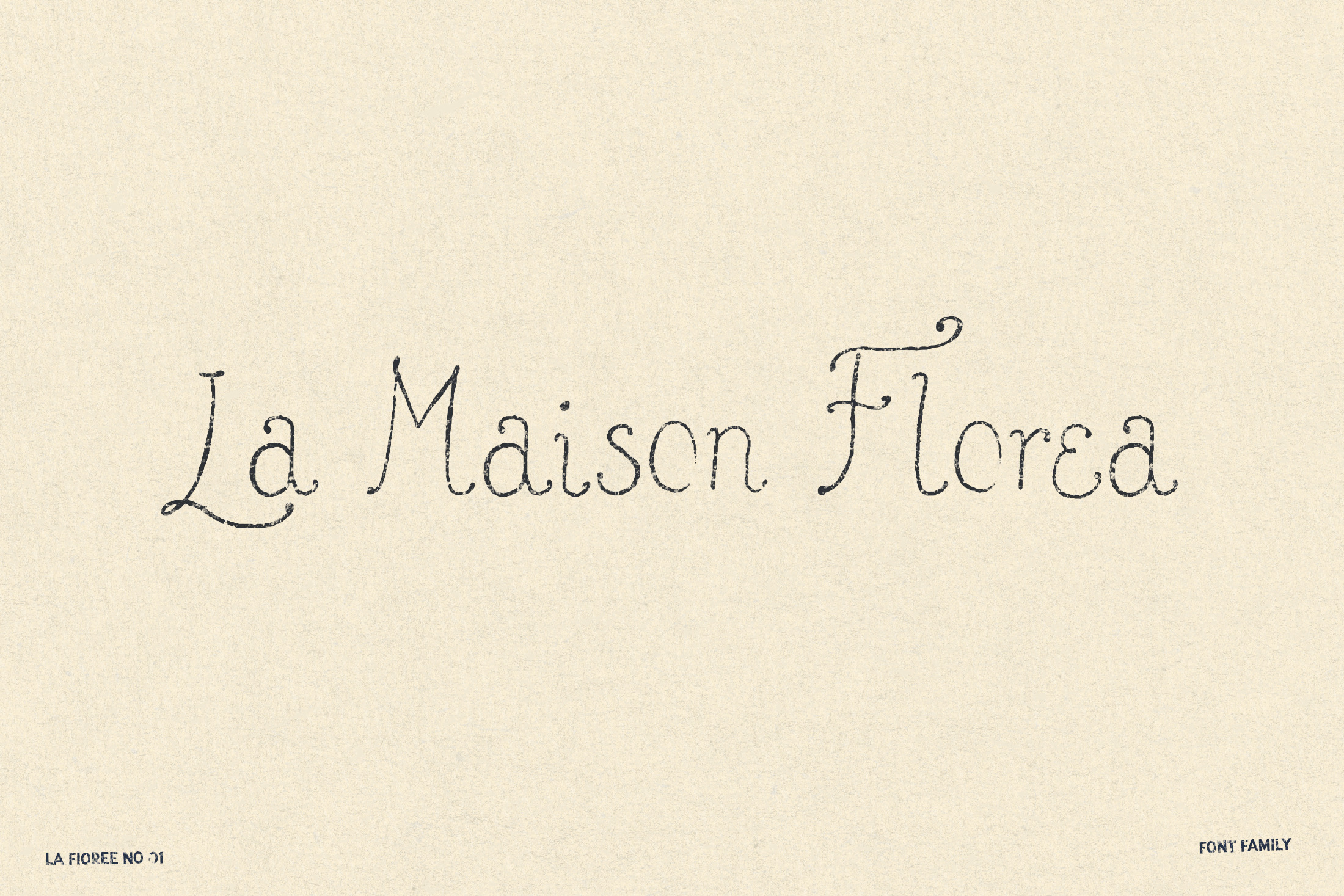
Handwritten Whimsical Script Font
Maison Florea is a meticulously handwritten font with an elegant, human-made feel, visible in every letter, curve and imperfect little stroke. Designed with subtle texture and a softly fading ink-on-paper effect, it brings a delicate, artistic quality to branding, packaging, editorial design, invitations, logos, boutique visuals and poetic social media graphics.
The font comes in 4 styles and 2 beautiful finishes: a cleaner, more polished handwritten version and a softer pencil-inspired texture with an HB pencil and charcoal-like look. Refined, expressive and full of handmade detail, Maison Florea is perfect for designers looking for a unique handwritten display font with warmth, atmosphere and quiet sophistication.